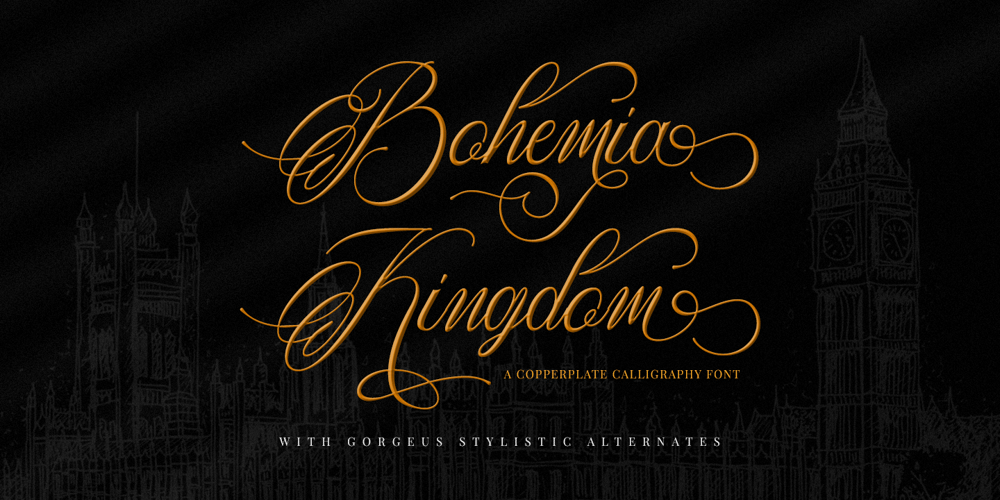
Bohemia Kingdom Font Family was designed by Hayinah and published by Rockboys Studio. Bohemia Kingdom contains 1 styles and family package options. Bohemia Kingdom is a unique handwritten font. It includes elegant swashes which can be used to give a luxurious look to your designs. It can be used for various purposes such as logos, wedding invitations, headings, t-shirts, letterhead, signage, labels, news, posters, badges and so much more.PUA encoded = Accessible in the Adobe Illustrator, Adobe Photoshop, Adobe InDesign, even work on Microsoft Word. PUA Encoded Characters – Fully accessible without additional design software.Thank You